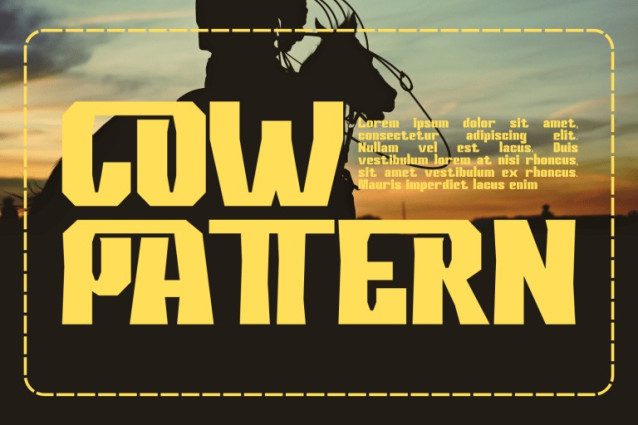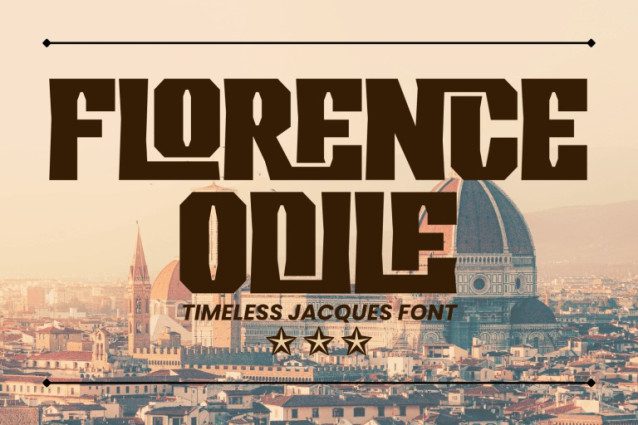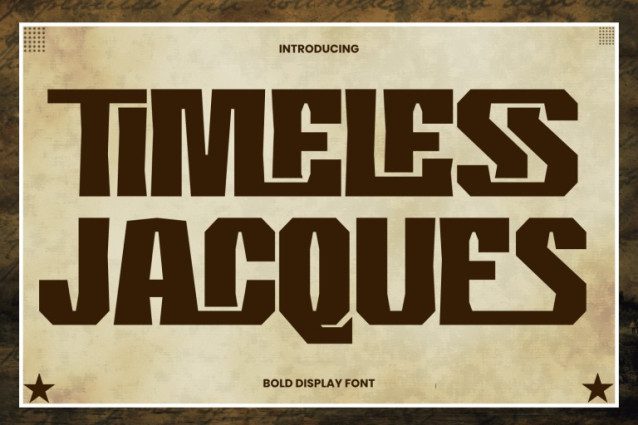
Timeless Jacques Font
TIMELESS JACQUES – RETRO FUTURISTIC FONT, a powerful Geometric Sans-Serif Display Font that captures both the strength of industrial design and the timeless appeal of vintage typography. With its thick strokes, angular shapes, and distinctive character cuts, this font brings a bold, confident tone to any creative project.
🔤Features:
Uppercase & Lowercase Letters
Approximately 100 Special Ligatures for creative composition
Numerals & Punctuation for complete versatility
Accented Characters supporting multiple languages
🔤About 100 ligatures combined with Stylistic Alternates Font:
AC AD AL AN AR AS AT AU AV BE CA CE CH CO CT DE DI EA EC ED EE EL EM EN EP ER ES ET FE FO FR GE HA HE HI HO IE IC IL IN IO IR IS IT JU KE LA LE LI LL LO LY MA ME MI NC ND NE NG NO NT NS OC OF OM ON OO OP OR OT OU OW PA PR RA RD RE RI RO RS RT SE SH SI SO SS ST TA TE TH TI TO TR TT UM UN UR VE WI WO